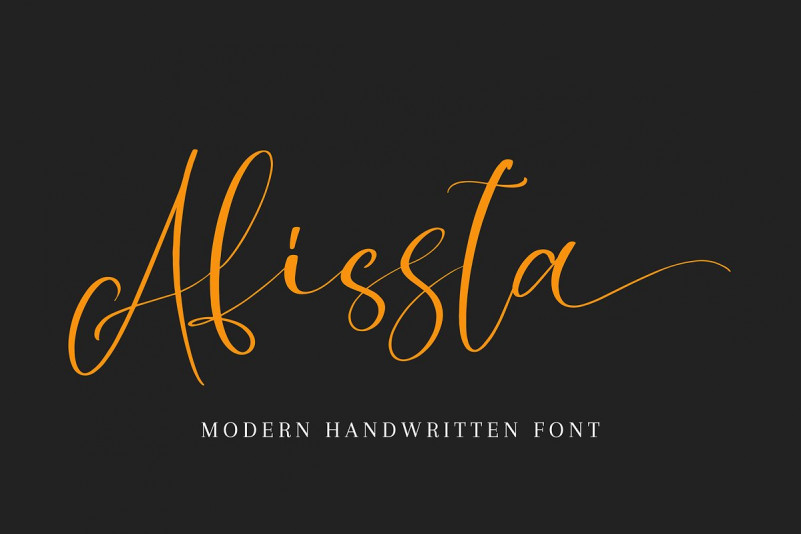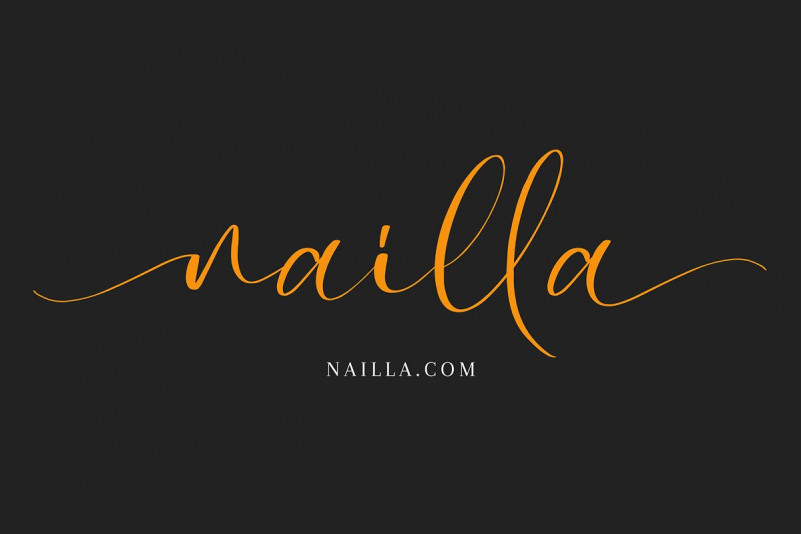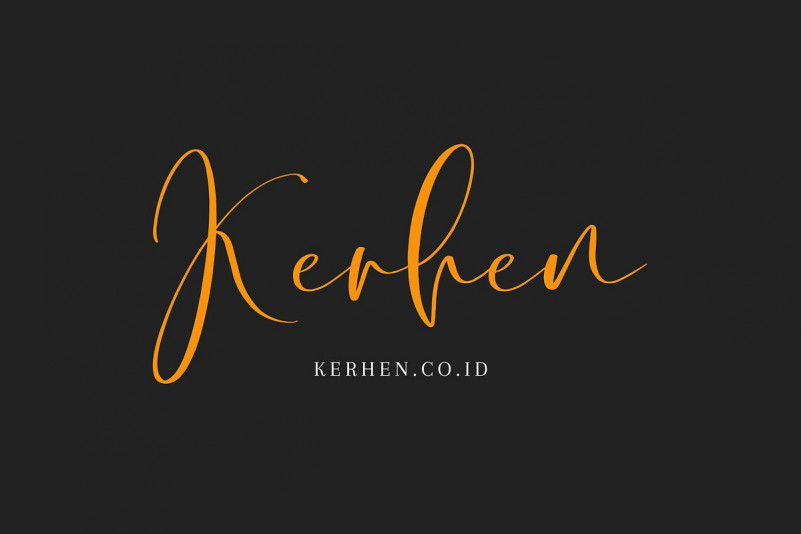
Afissta Font
Afissta handwritten font with new style, this font will perfect for many different project ex: quotes, logo, blog header, poster, banding, fashion, apparel, letter, invitation, stationery, etc…